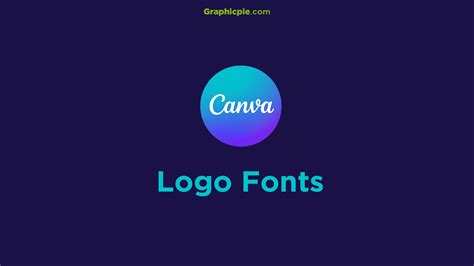
Canva Logo Font. Plus with a creative twist or dash of detail they have a cool, contemporary vibe. Browse through canva’s massive library of logo templates to customize for your own.